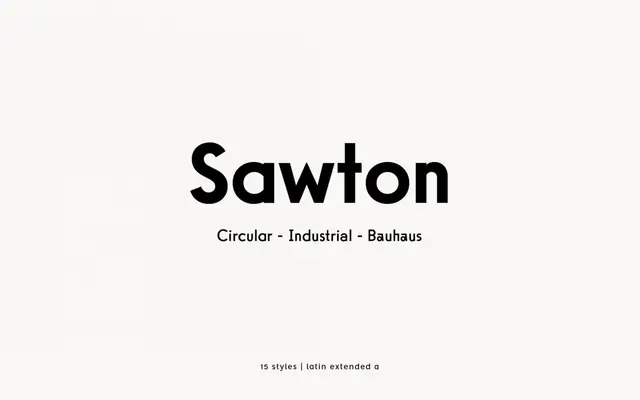
Sawton specimen from atipo foundry
A three-flavour geometric sans system from atipo, offered as Circular, Industrial and Bauhaus cuts across five weights.
Sawton is a geometric sans-serif system from atipo foundry built around three sibling cuts. Sawton Circular leans on perfectly circular bowls in the Futura and Avenir tradition, Sawton Industrial squares those forms off for a more mechanical reading, and Sawton Bauhaus pushes the construction toward early twentieth-century geometric experiments. Each subfamily runs from Thin to Bold across five weights with shared metrics, so designers can swap between cuts within a single layout for headline texture. Best used for branding, posters and editorial display where geometric character is doing the talking.
A geometric sans system in three flavours, Circular, Industrial and Bauhaus, each running from Thin to Bold. The three subfamilies share metrics so they can be mixed across a single layout.